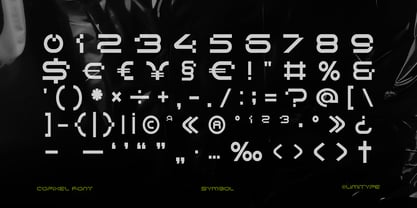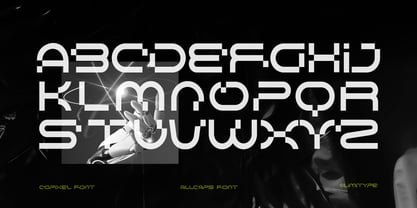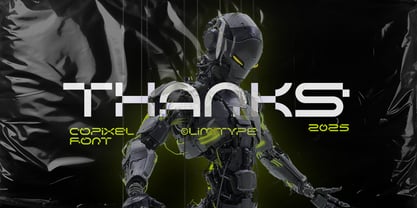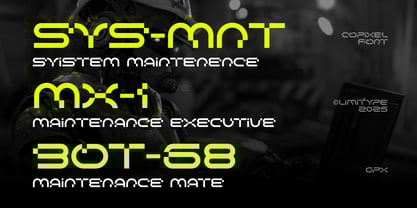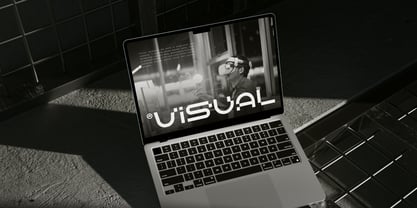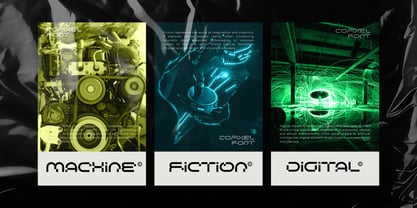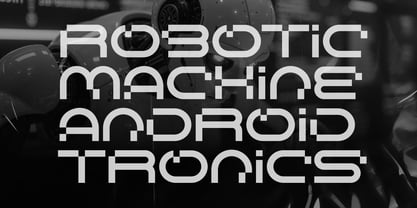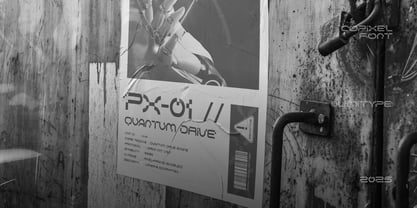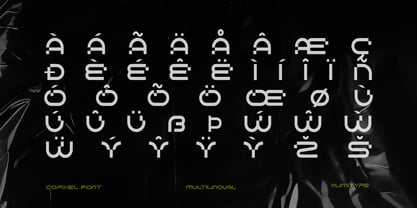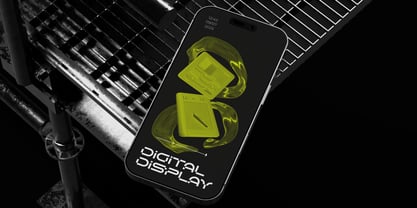
Copixel
The Copixel Font Family was designed by Muhammad Muammar, Furqan Sudirman and published by limitype. Copixel contains 1 styles.
Introducing Copixel Font, a bold futuristic typeface designed for digital worlds, advanced technology, and cyber-inspired projects. Copixel combines sharp, pixel-based details with a modern, robotic aesthetic, making it perfect for tech, gaming, sci-fi, and cyberpunk themes. Its strong, geometric shapes deliver a powerful digital feel, ideal for headlines, posters, logos, and futuristic interfaces. Bring a cutting-edge, tech-forward vibe to your designs with Copixel Font.
- AllCaps Font
- Number
- Symbol
- Multilingual